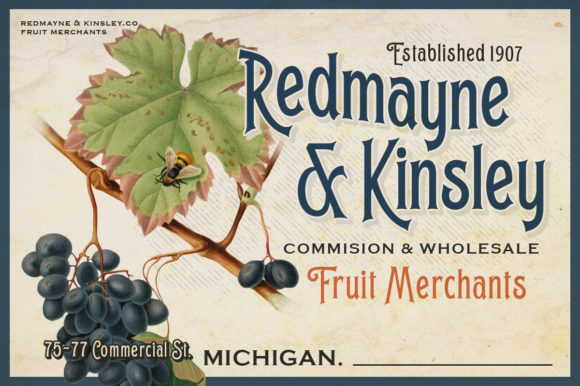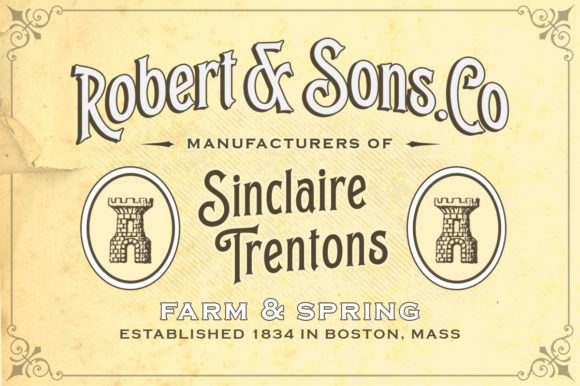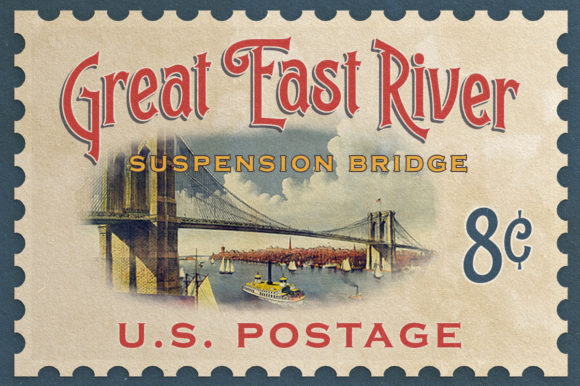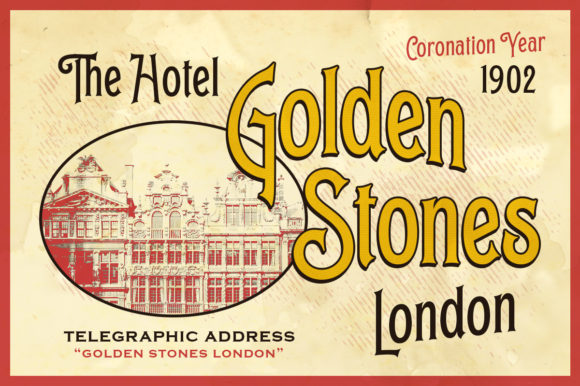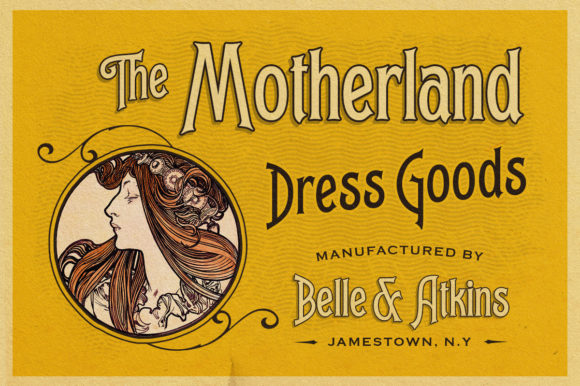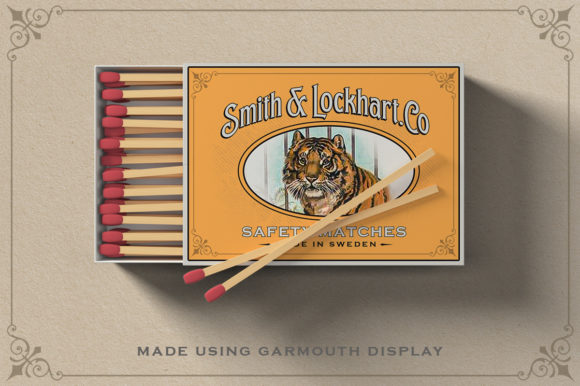
Garmouth Font: Elevate Your Designs with a Touch of Vintage Elegance
In the world of typography, fonts play a crucial role in conveying the tone and personality of a design. For designers and crafters looking to add a touch of sophistication and elegance to their projects, the Garmouth Font is an excellent choice. This cool, vintage-styled, and bold serif font is perfect for creating stunning logos, branding materials, invitations, stationery, wedding designs, social media posts, and more.
The Charm of Garmouth Font
Garmouth Font boasts a classy and elegant look that is sure to captivate your audience. Its bold serif design gives it a distinctive and sophisticated feel, making it ideal for designs that require a touch of luxury and refinement. The font’s vintage style adds a nostalgic charm, perfect for creating unique and eye-catching designs that stand out from the crowd.
One of the key benefits of Garmouth Font is its versatility. Its elegant design makes it suitable for a wide range of applications, from logos and branding to invitations and stationery. Whether you’re designing a wedding invitation, a social media post, or a business logo, Garmouth Font is the perfect choice. Its bold and classy look ensures that your design will make a lasting impression on your audience.
Garmouth Font is a must-have for designers and crafters who want to elevate their designs to the next level. Its unique and elegant design makes it an excellent choice for creating stunning visual content that stands out from the crowd. Whether you’re a professional designer or a DIY crafter, Garmouth Font is an excellent addition to your font collection.
Key Features of Garmouth Font
- Cool and Vintage Style: Garmouth Font boasts a cool and vintage style that adds a touch of nostalgia to your designs.
- Bold Serif Design: The font’s bold serif design gives it a distinctive and sophisticated feel.
- Classy and Elegant Look: Garmouth Font has a classy and elegant look that is perfect for designs that require a touch of luxury and refinement.
- Versatile: The font is suitable for a wide range of applications, from logos and branding to invitations and stationery.
Tips for Using Garmouth Font
To get the most out of Garmouth Font, here are a few tips:
- Use it for Headings: Garmouth Font is perfect for headings and titles, where its bold and classy look can make a lasting impression.
- Pair it with a Sans-Serif Font: For body text, pair Garmouth Font with a sans-serif font to create a nice contrast and add visual interest to your design.
- Experiment with Colors: Garmouth Font looks great in a variety of colors, so don’t be afraid to experiment and find the perfect shade for your design.
In conclusion, Garmouth Font is an excellent choice for designers and crafters looking to add a touch of elegance and sophistication to their designs. Its cool, vintage-styled, and bold serif design makes it perfect for creating stunning logos, branding materials, invitations, stationery, wedding designs, social media posts, and more. With its versatility and classy look, Garmouth Font is a must-have for any designer or crafter looking to elevate their designs to the next level.